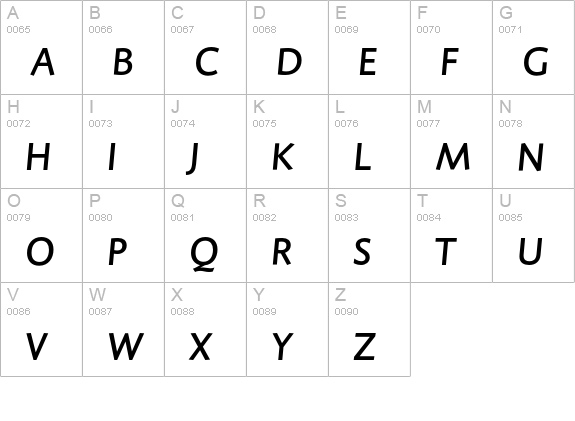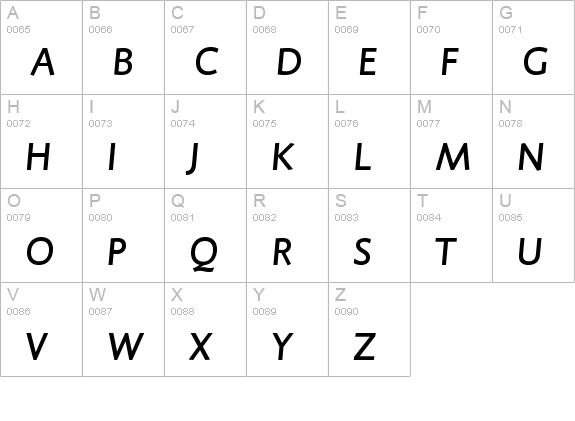
DTLCaspariT-MediumItalic Font Details
Introducing DTLCaspariT-MediumItalic font, a stylish and sophisticated typeface that exudes elegance and modernity. This font is perfect for adding a touch of sophistication to any design project, whether it be for branding, invitations, or editorial layouts. With its sleek lines and subtle curves, DTLCaspariT-MediumItalic font is sure to make a statement and elevate your designs to the next level. Its medium weight and italic style add a sense of flair and personality, making it ideal for creating eye-catching headlines or adding emphasis to your text. What's more, DTLCaspariT-MediumItalic font is available for free download at FontsMarket.com, making it easily accessible to designers and creatives looking to enhance their projects with a touch of elegance. Don't miss out on this opportunity to elevate your designs with this stunning font. Download DTLCaspariT-MediumItalic today and take your designs to new heights!